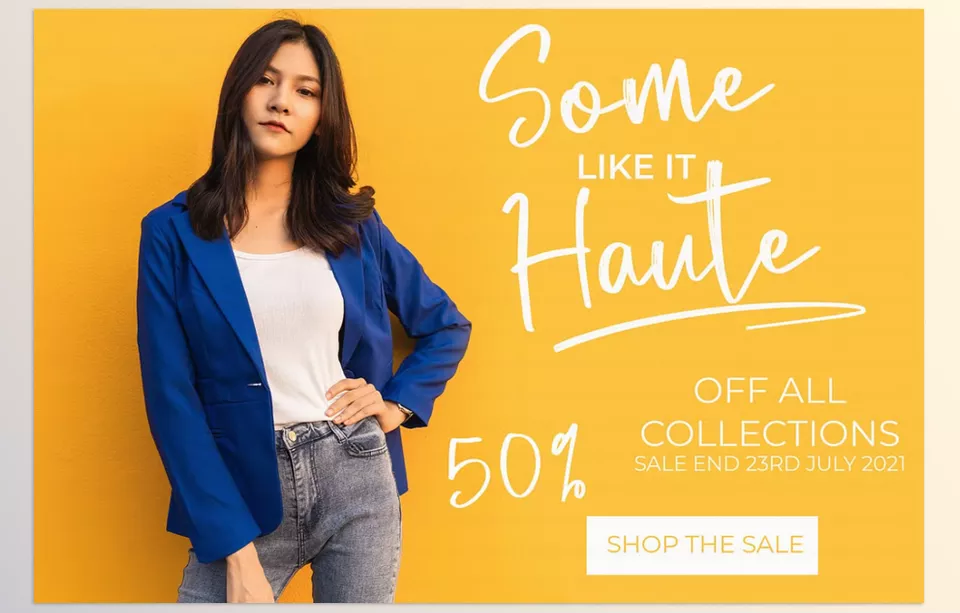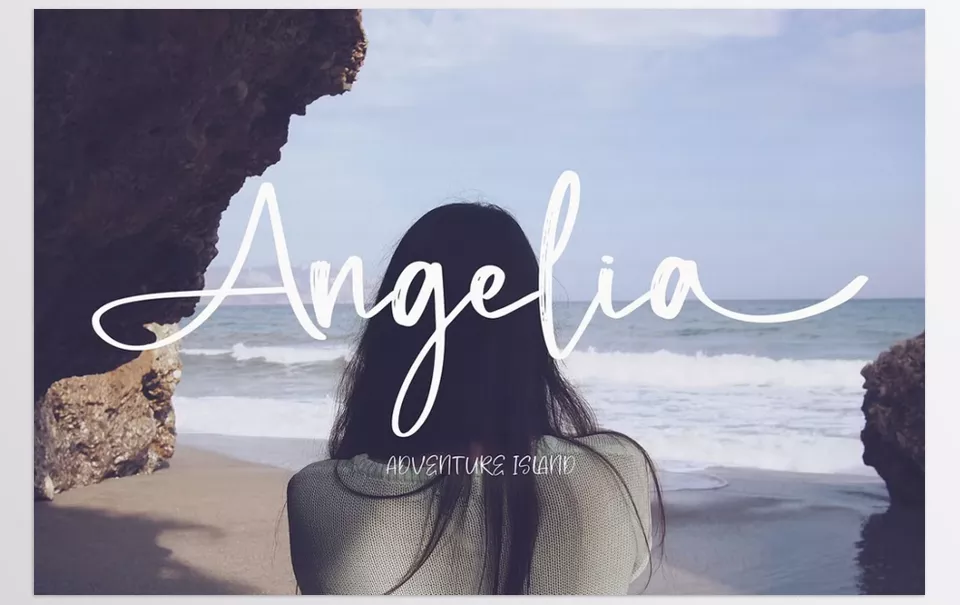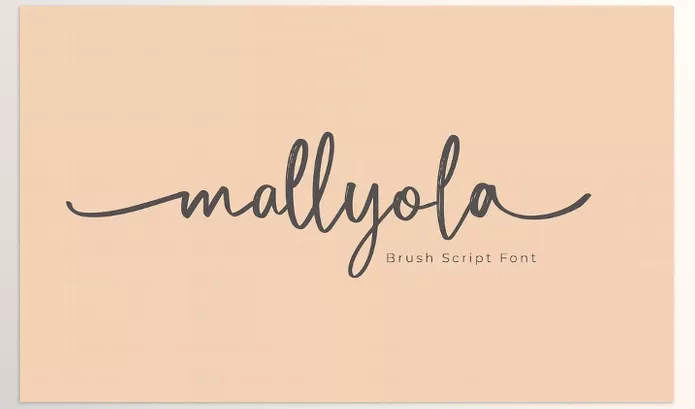
Mallyola Brush Script Font is a lively font along the lines of a modern script typeface that resembles hand-brush writing. From branding to packaging and even invitations, this font can be used in any project. With Mallyola, you can enjoy the authentic approach that its character shapes bring to your designs.
NTC Graphic – Mallyola Brush Script Font Features
• Comes with ligatures, stylistic alternates, and decorative swashes.
• Can be set in many languages, allowing more freedom in design.
Preview Mallyola Brush Script
Image 1: A bold hand-brush script that adds artistic energy to every design!
Mallyola Brush Script Font - A bold hand-brush script that adds artistic energy to every design!
Image 2: From branding to invitations, it brings handcrafted charm and dynamic flair to your projects.
Mallyola Brush Script Font - From branding to invitations, it brings handcrafted charm and dynamic flair to your projects.